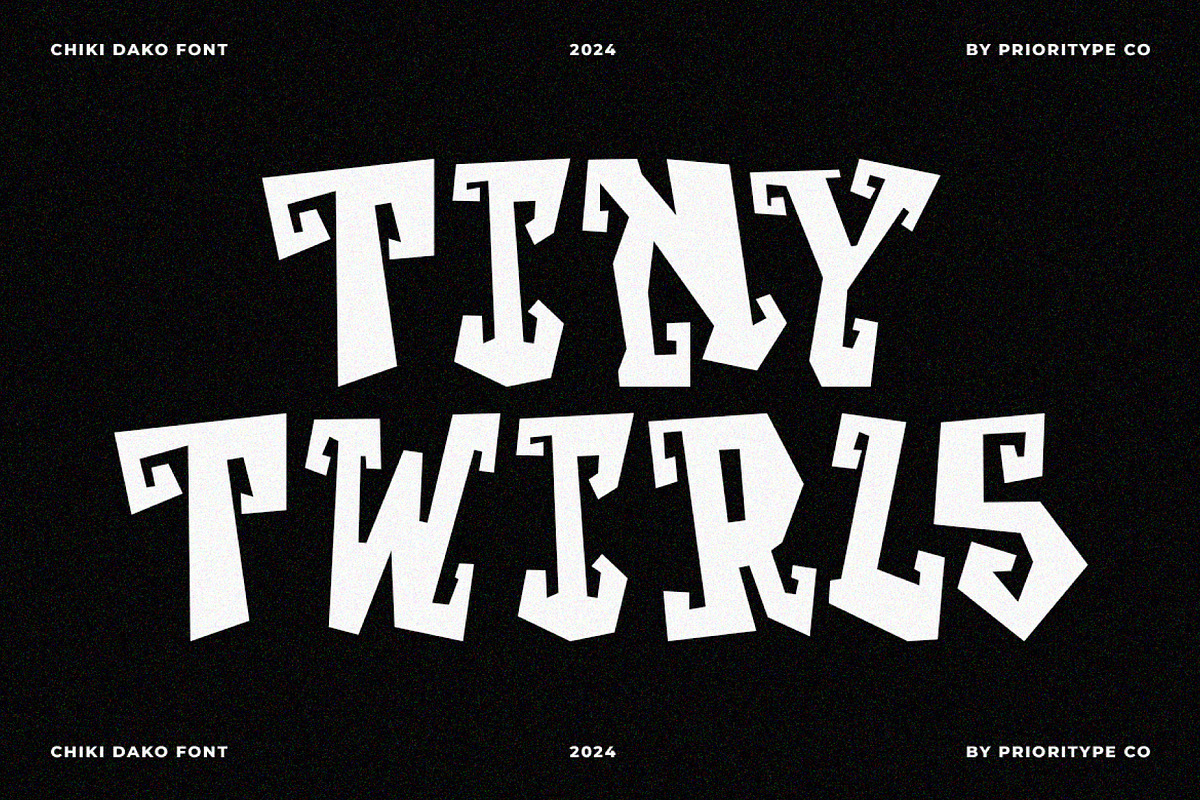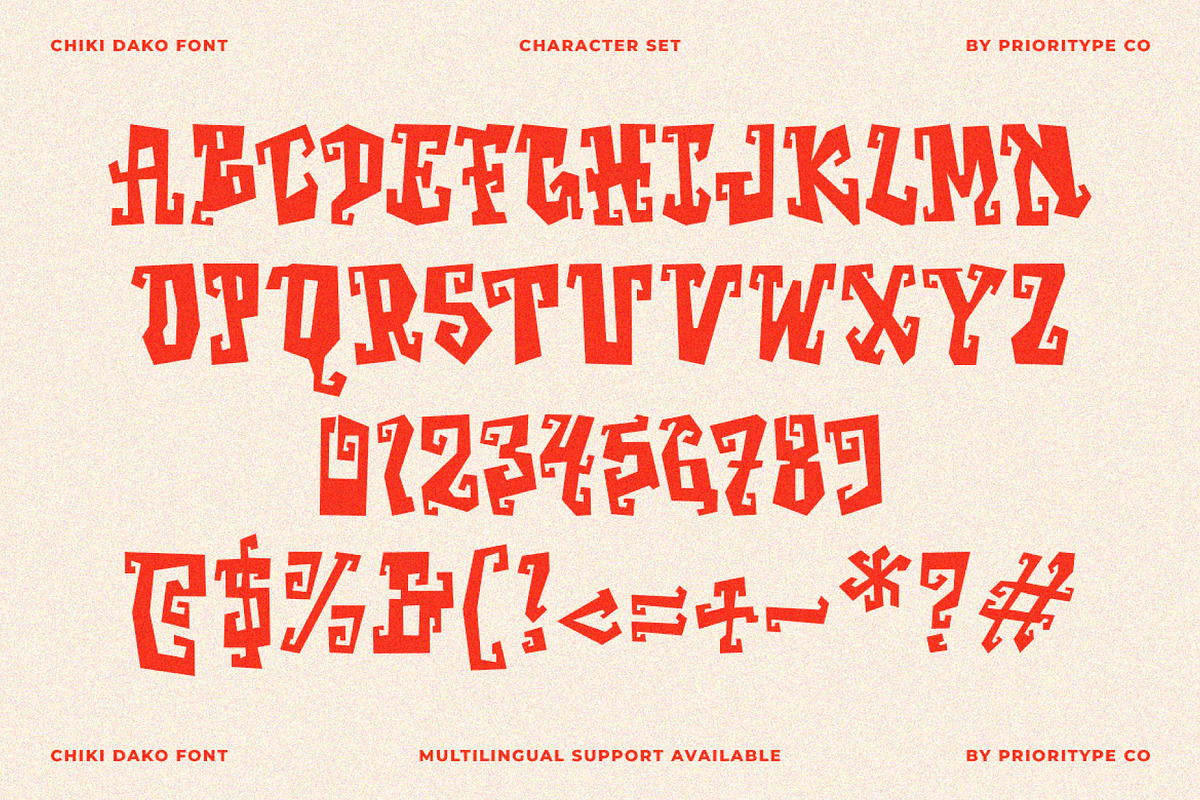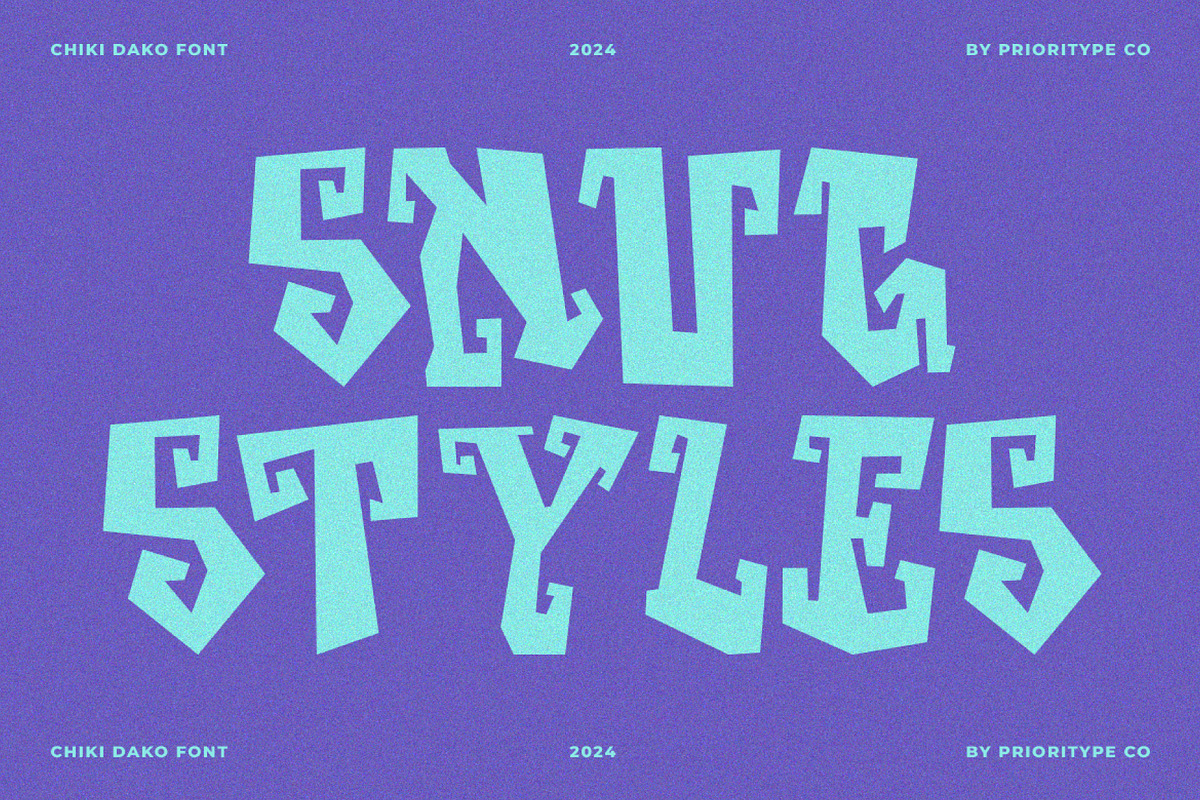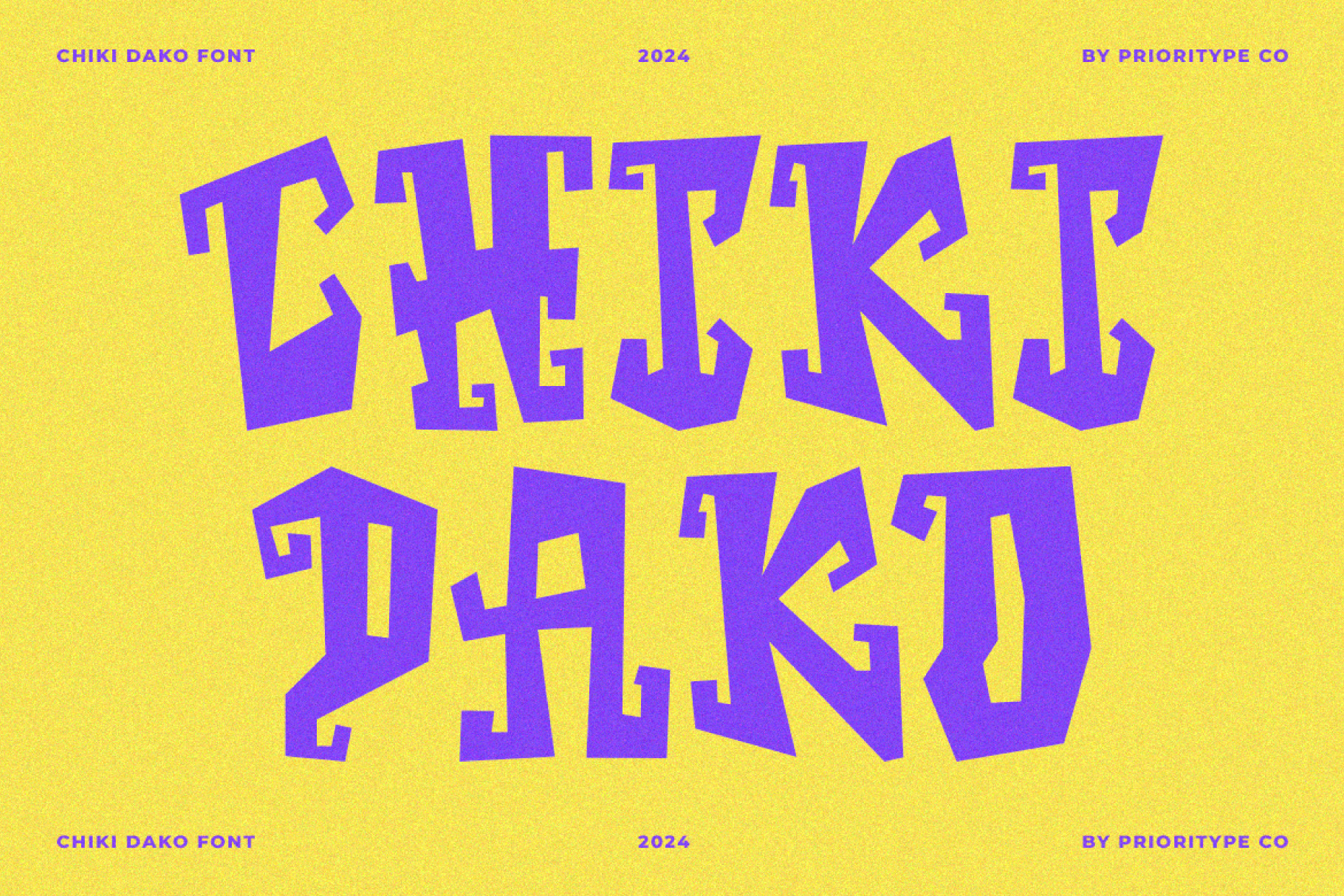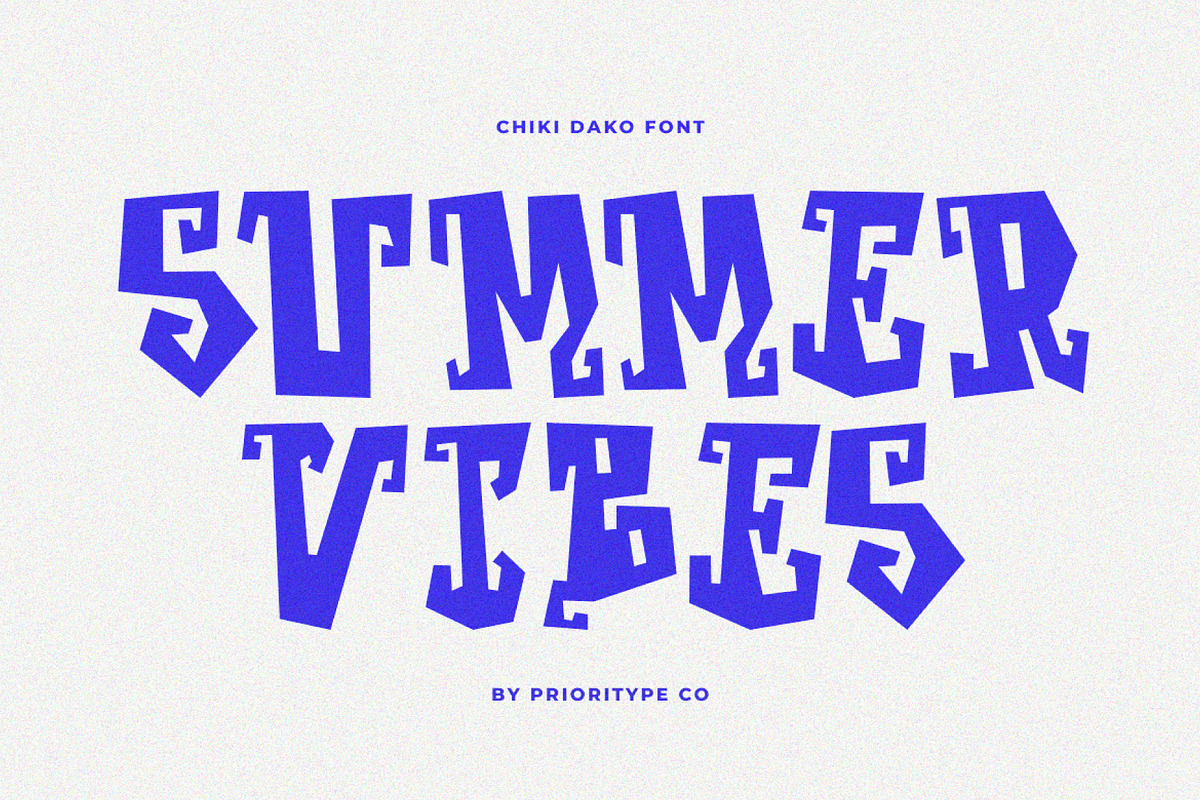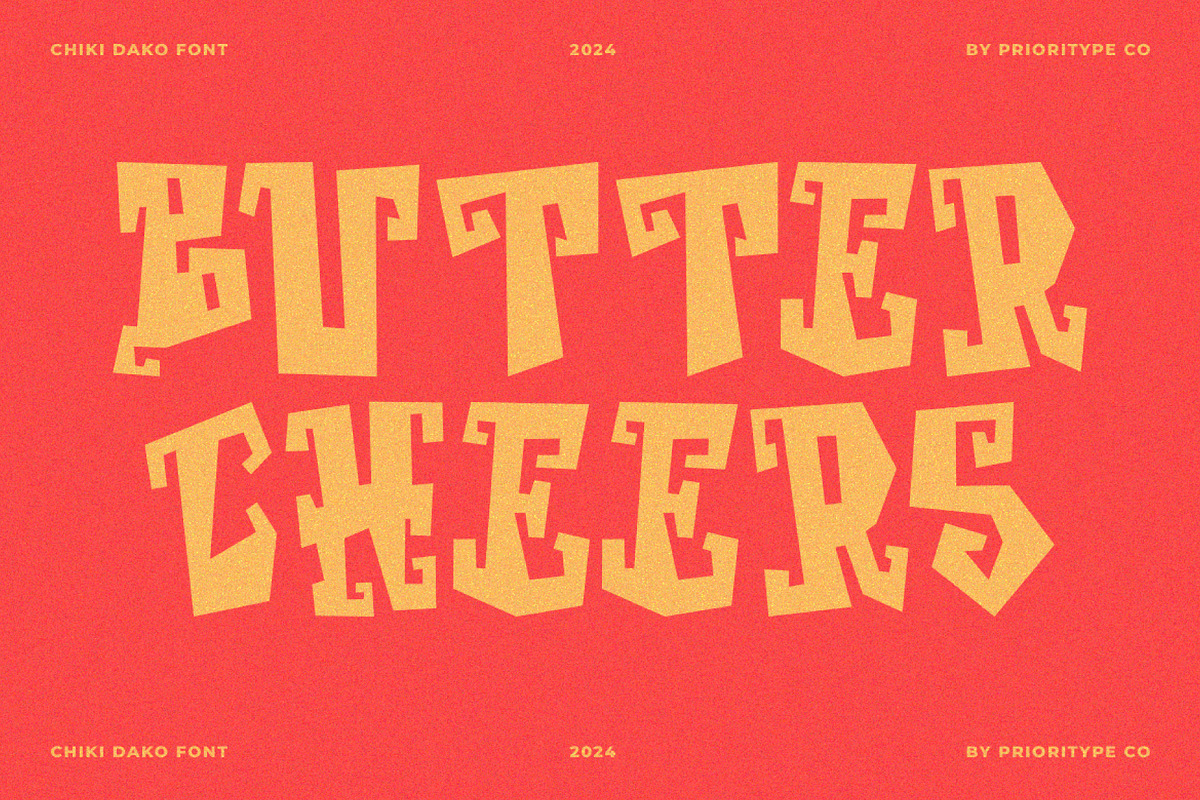
Chiki Dako - Playful Display Font
Introducing Chiki Dako font. Where playful swirls meet sophisticated design. Perfect for branding, logos, merchandise, and more, its vibrant personality adds charm to any project. Elevate your designs with "Chiki Dako" and captivate your audience with its joyful allure.